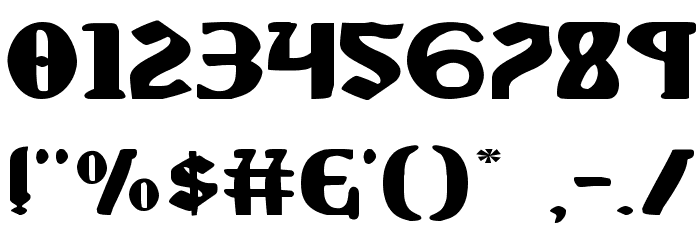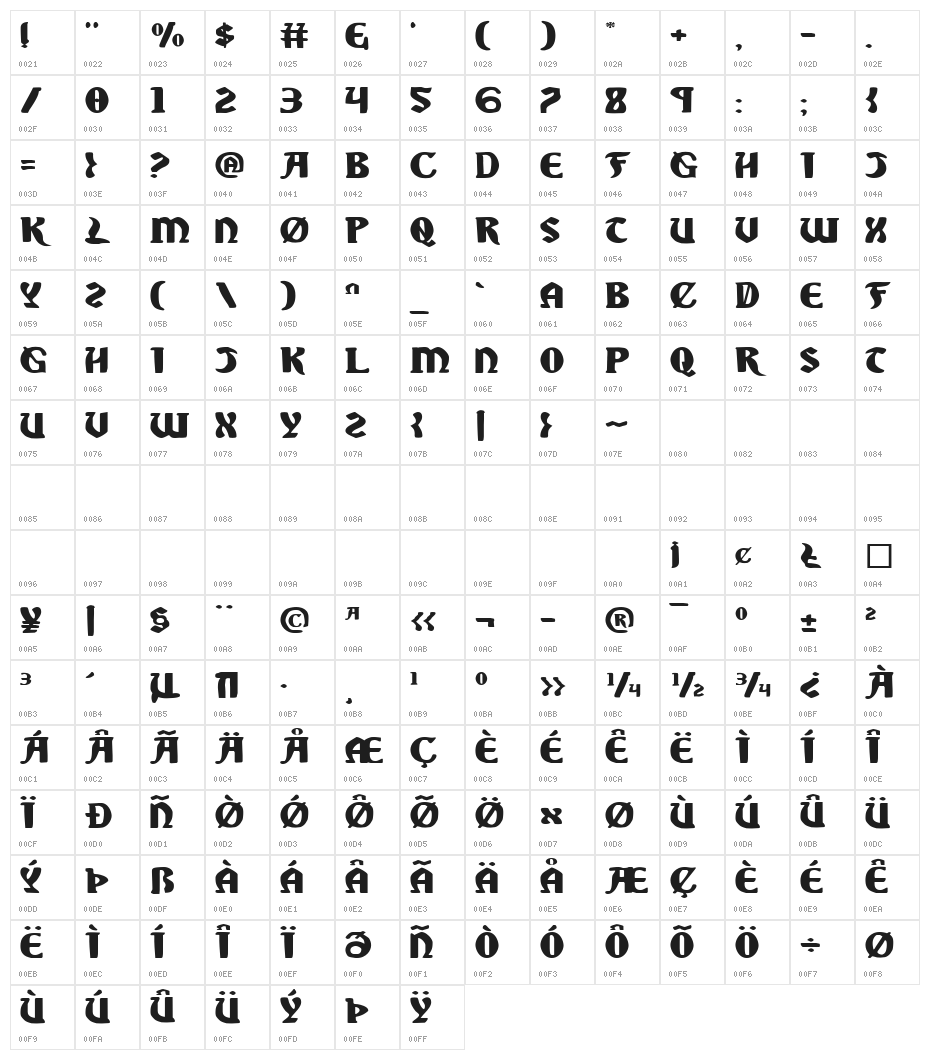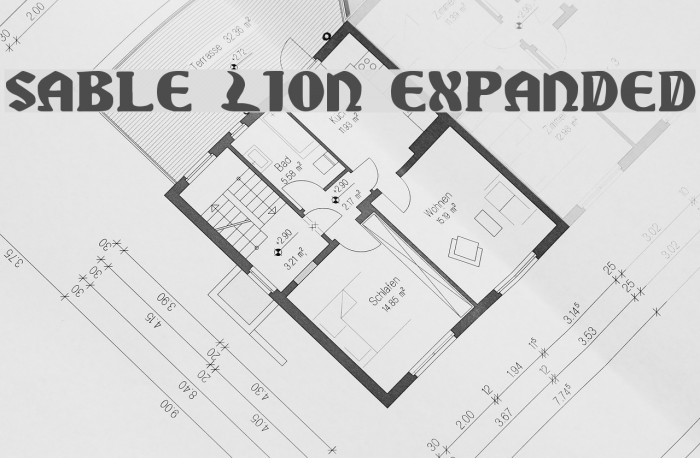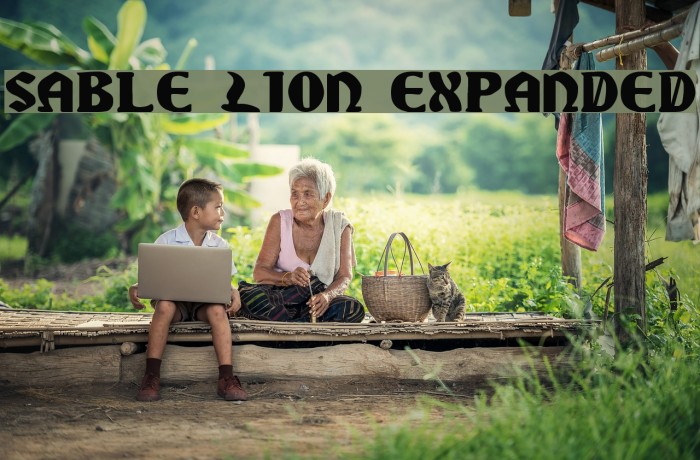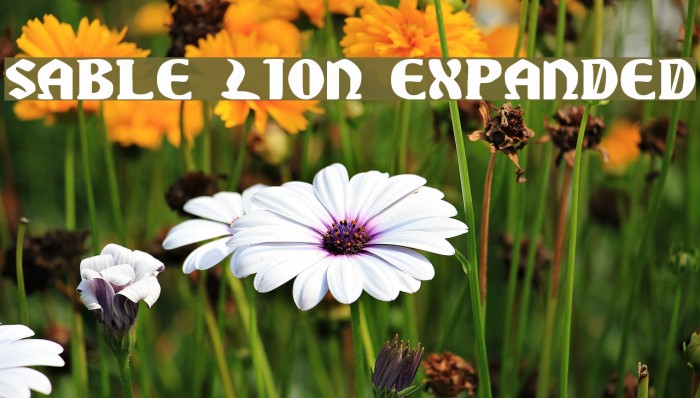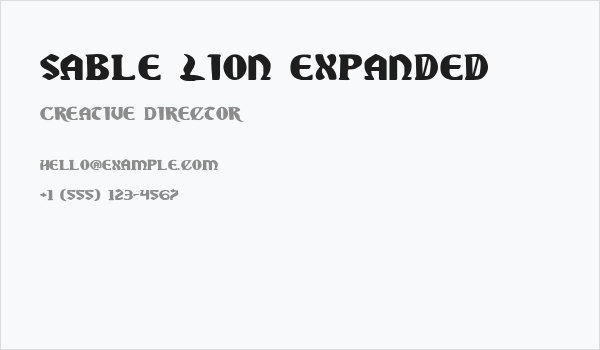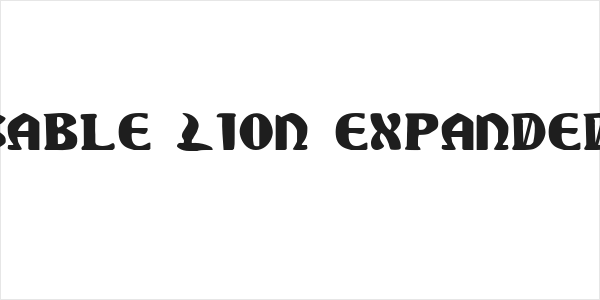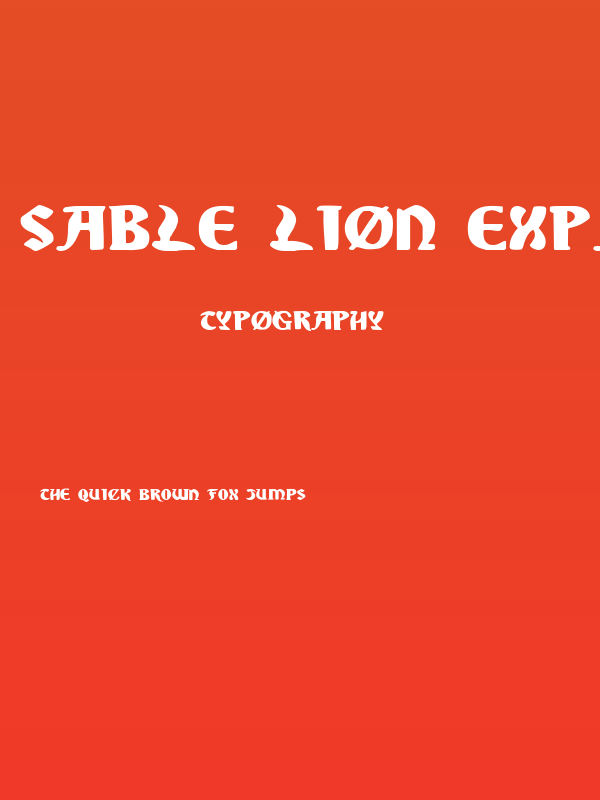
Sable Lion Expanded Font
Sable Lion Expanded Description
This font exhibits a bold and dramatic style, characterized by its thick strokes and sharp, angular edges. The uppercase letters are particularly striking, with a strong presence that commands attention. The lowercase letters maintain the same boldness, ensuring consistency across the typeface. The numbers and special characters are equally robust, making them stand out in any design. The overall aesthetic is reminiscent of medieval or gothic influences, lending a sense of tradition and strength. This font is perfect for projects that require a touch of boldness and historical flair.